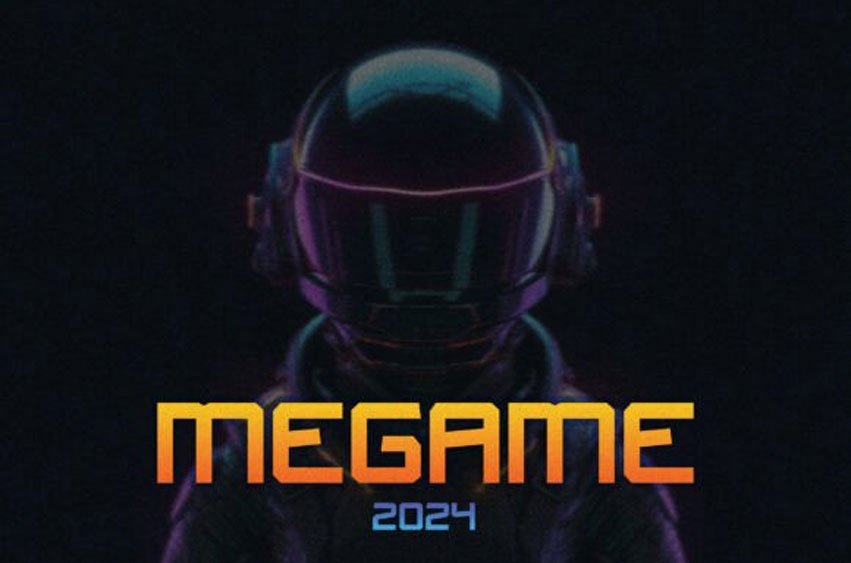
Megame Font
Megame Font is a bold futuristic font built to dominate screens, command attention, and power visionary design.
Inspired by cyberpunk, gaming interfaces, and sci-fi realms, Megame’s angular forms and geometric cuts evoke a sense of motion, innovation, and high-tech precision.